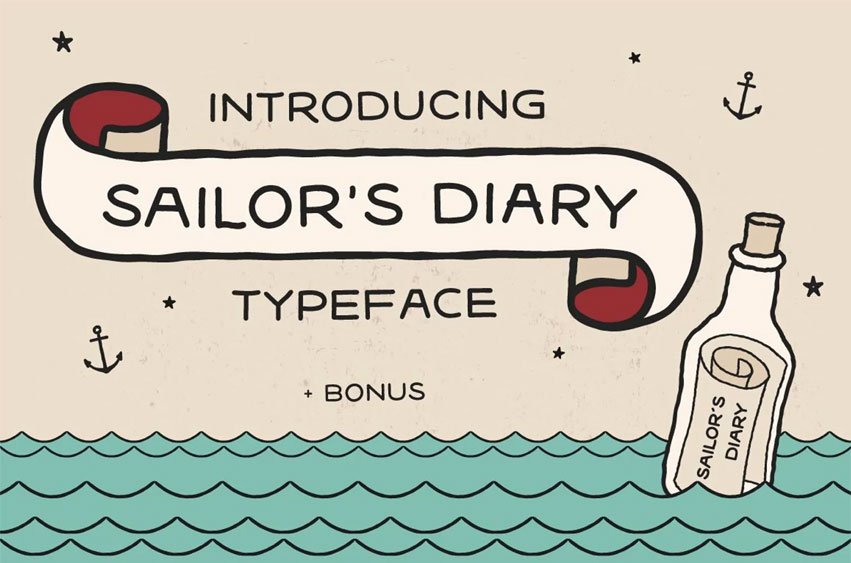
Sailors Diary Font is ideal for banners and scrolls with traditional tattoo designs or posters with a lot of text.
With more than 220 alternate letters and more than 180 special characters, punktuations and their alternates you can give text a real hand written character.